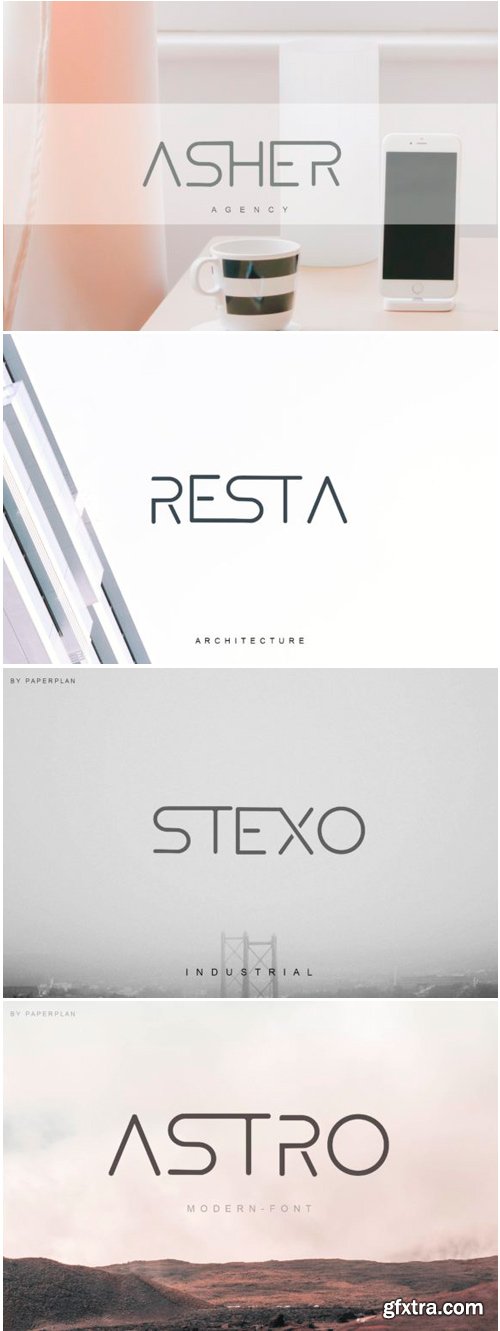
Astro Font
The Astro is a modern font. It was designed with the golden ratio technique so that it has a sophisticated style of space. It would be perfect for logos, printing techniques, embroidery, screen printing, and every other design which needs a minimalist style.